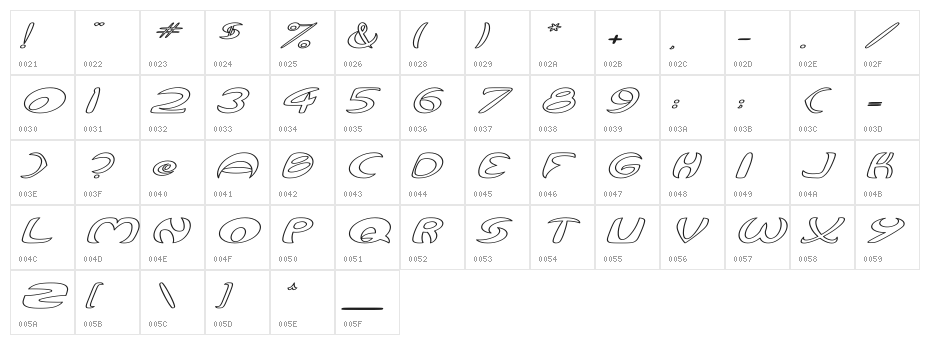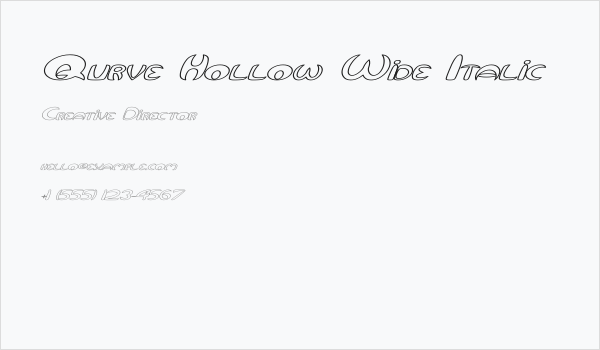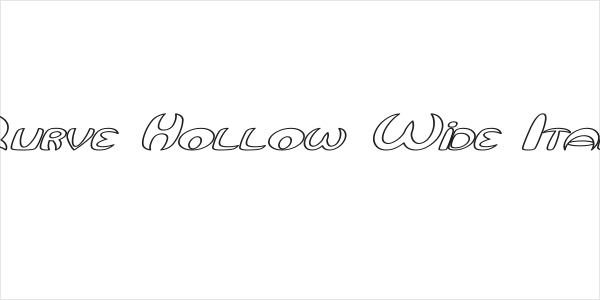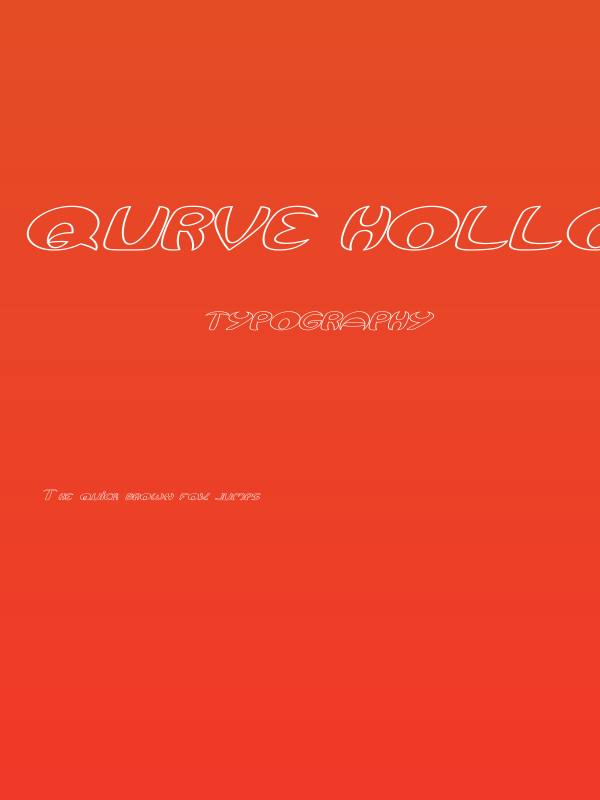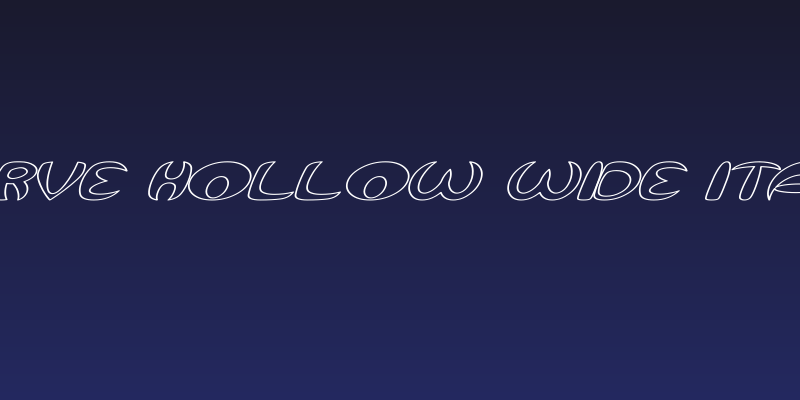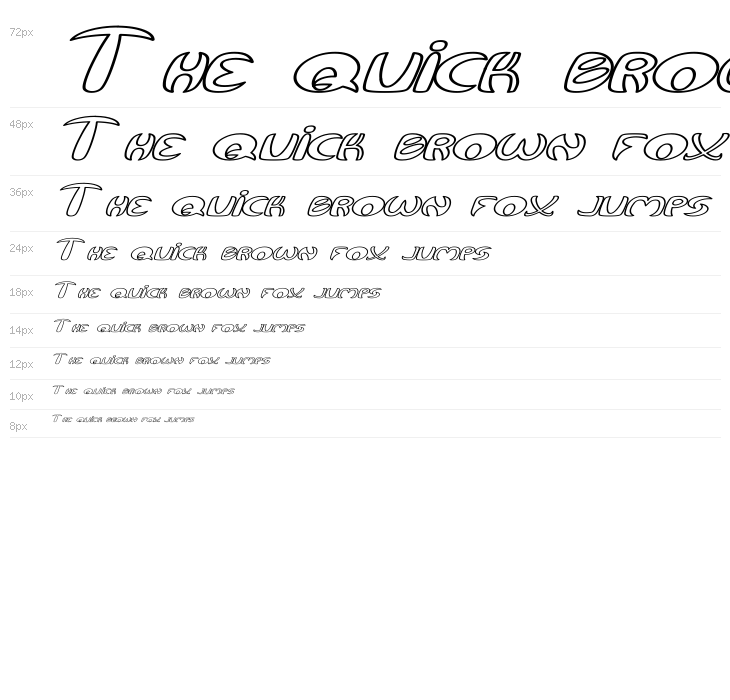
Qurve Hollow Wide Italic Font
Qurve Hollow Wide Italic Description
This font features a unique hollow design with a wide stance and italicized form, giving it a dynamic and modern appearance. The characters are bold and spacious, with a distinct flow that adds a sense of movement and energy. The hollow aspect of the letters creates an open and airy feel, making it suitable for eye-catching designs. The wide letterforms ensure readability while maintaining a stylish and contemporary look. This font is perfect for projects that require a bold statement with a touch of elegance and modernity.